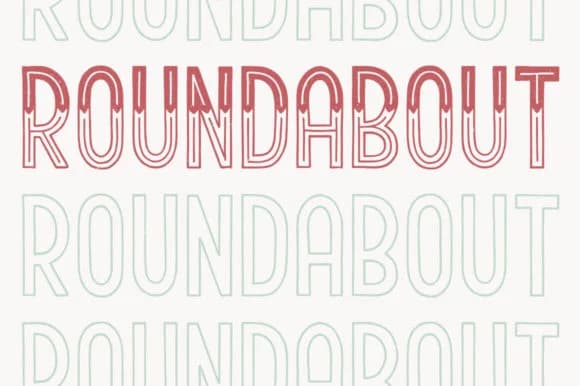
There's a buoyant, handmade energy to this one. Roundabout, designed by Lauren Ashpole, is a hand-drawn script with a distinctly top-heavy character that bounces along the baseline with real personality and charm.
The three-part toolkit gives you serious flexibility in how you approach each project. You've got the full version with decorative fill and inner lines for maximum impact, plus simpler versions that give you just the outline or just the fill depending on what the work needs. This means you can run it heavy and ornate on wedding invitation suites and greeting card designs, keeping all the richness and detail on display. Or strip it back for DIY craft labels, artisanal product packaging, and hand-lettered shop signs where a lighter touch makes sense. The letterforms stay consistent with uppercase and lowercase largely matching, except for the characters k, n, r, x, and y, which minimizes visual friction when you're setting anything longer than a headline or tagline.
Pair it with a clean, minimal sans-serif when you need secondary text or body copy alongside it. That contrast will let Roundabout hold the visual spotlight without fighting for every ounce of attention from the reader. It's a versatile piece that rewards thinking through how you layer it in a design. Find it on Creative Fabrica and add it to your collection.
Roundabout Font is a script font that shines as a display or heading face. Pair it with a clean sans-serif or serif font for body text β the contrast creates a clear hierarchy while the two styles stay balanced and easy to read.